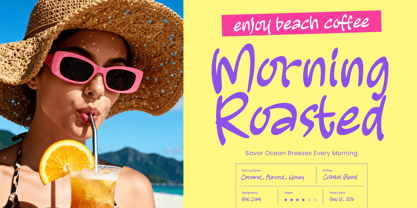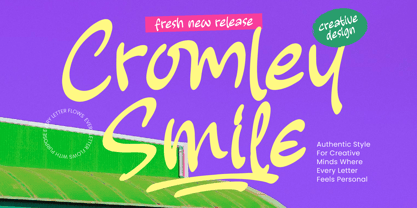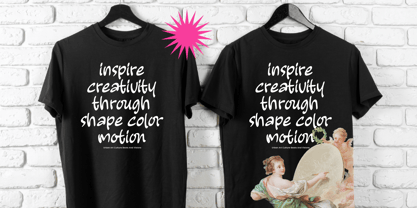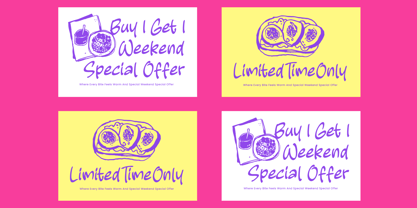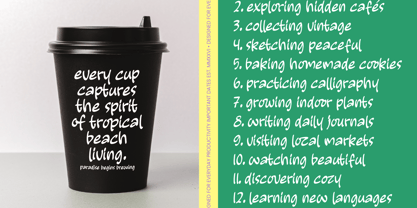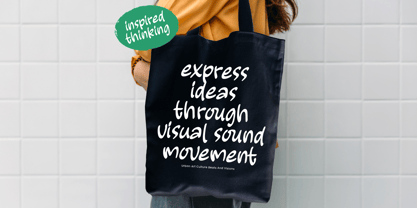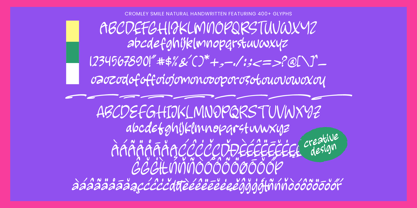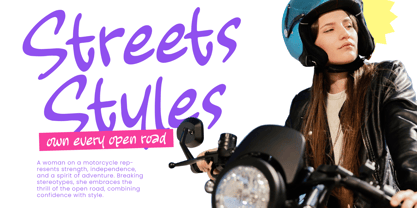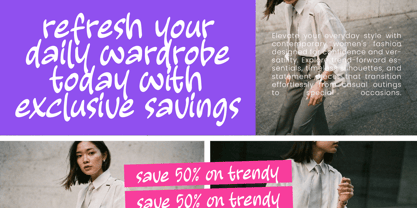
Cromley Smile
por Letterena Studios
La familia tipográfica Cromley Smile fue diseñada por Heru Utama Putra y publicada por Letterena Studios. Cromley Smile contiene 2 estilos y opciones de paquete familiar. Más información sobre esta familia
Cromley Smile - Natural Handwritten
Discover the perfect fusion of organic charm and professional craftsmanship with Cromley Smile - Natural Handwritten. This typeface captures a vibrant, hand-crafted essence through its fluid strokes and rhythmic flow, offering an authentic human touch to any digital canvas. By prioritizing legibility without sacrificing its unique personality, Cromley Smile - Natural Handwritten serves as a powerful tool for designers looking to inject energy and warmth into their creative compositions.
Diseñadores: Heru Utama Putra
Fundición: Letterena Studios